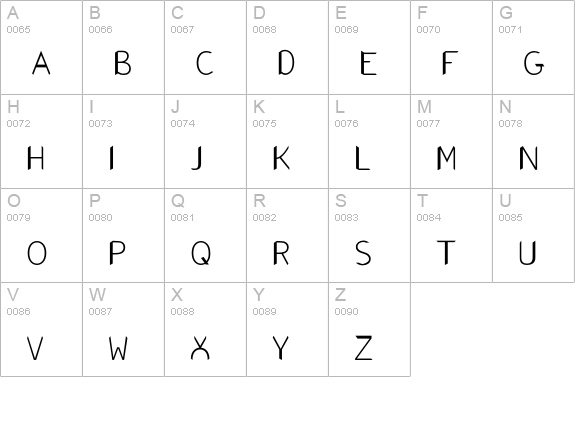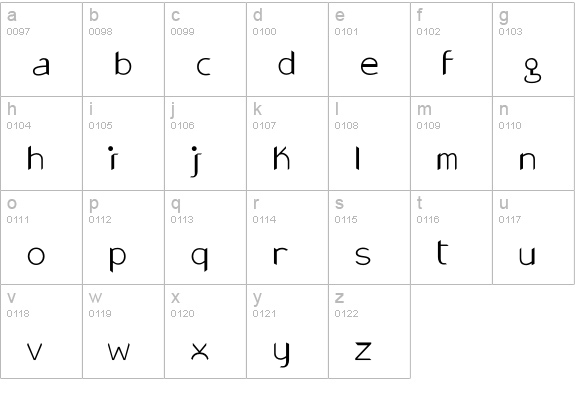
Gonza font is a beautifully crafted typeface that exudes elegance and sophistication. With its clean lines and modern appearance, this font is perfect for a wide range of design projects, from branding to editorial layouts. The sleek and stylish look of Gonza font makes it a versatile choice for both digital and print applications. Best of all, Gonza font is completely free to download at FontsMarket.com. Whether you're a seasoned designer looking to add a new font to your collection or a beginner searching for the perfect typeface for your next project, Gonza font is sure to impress. Don't miss out on this opportunity to enhance your designs with this stunning and free font download.